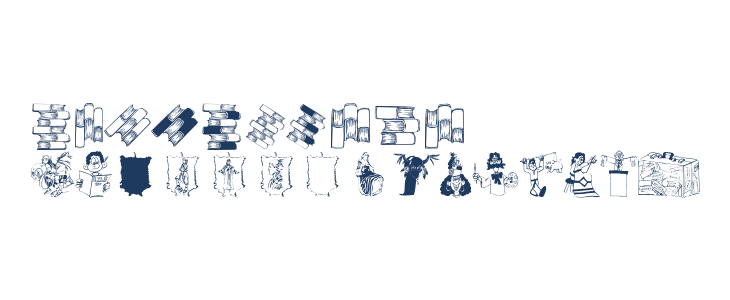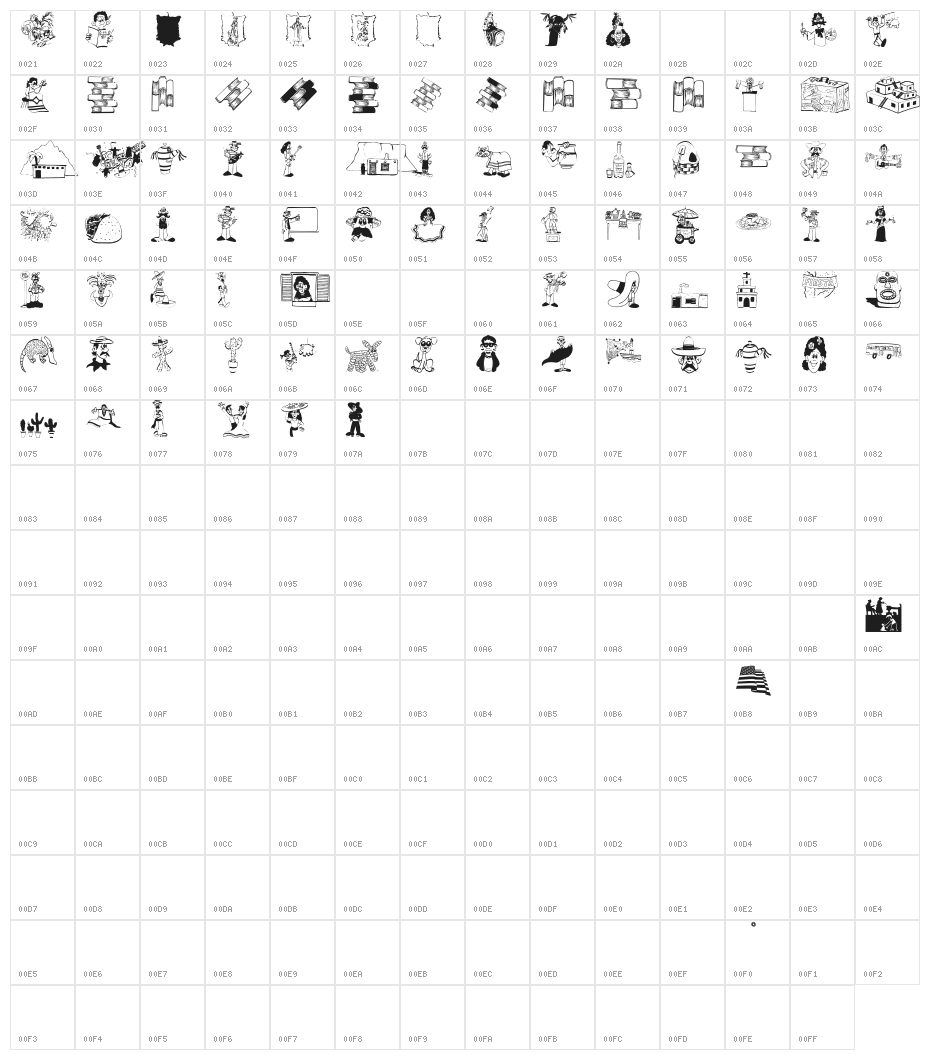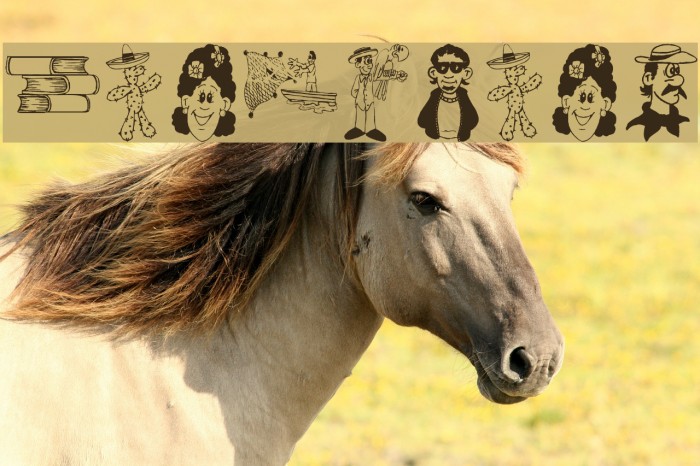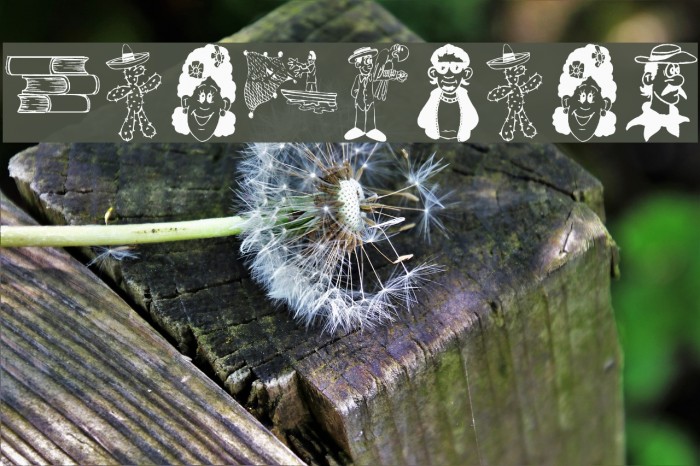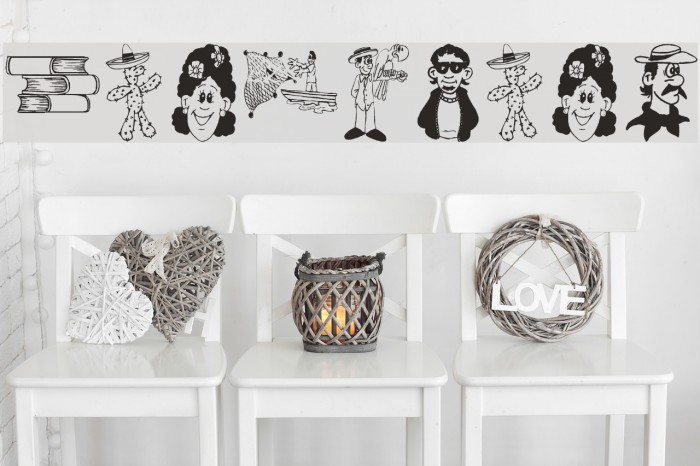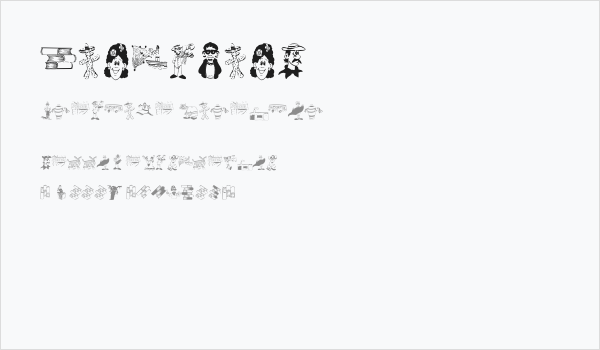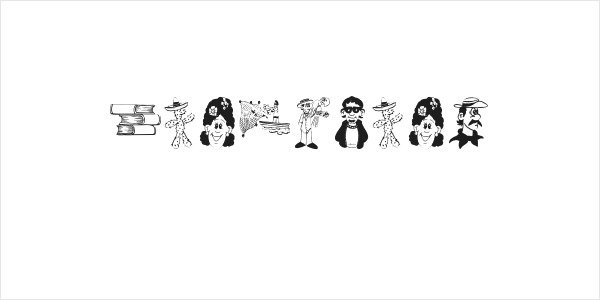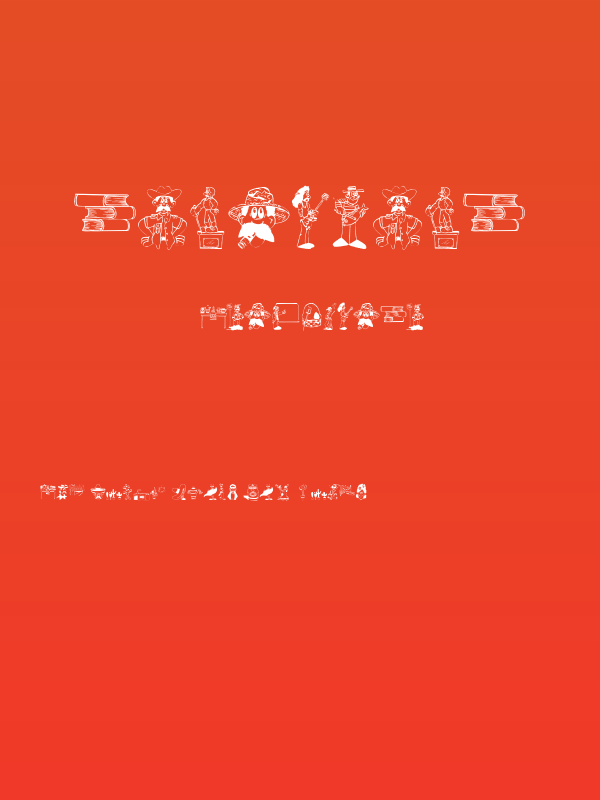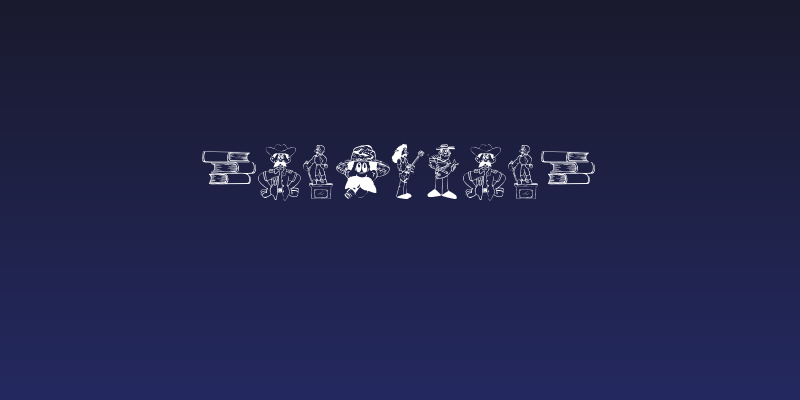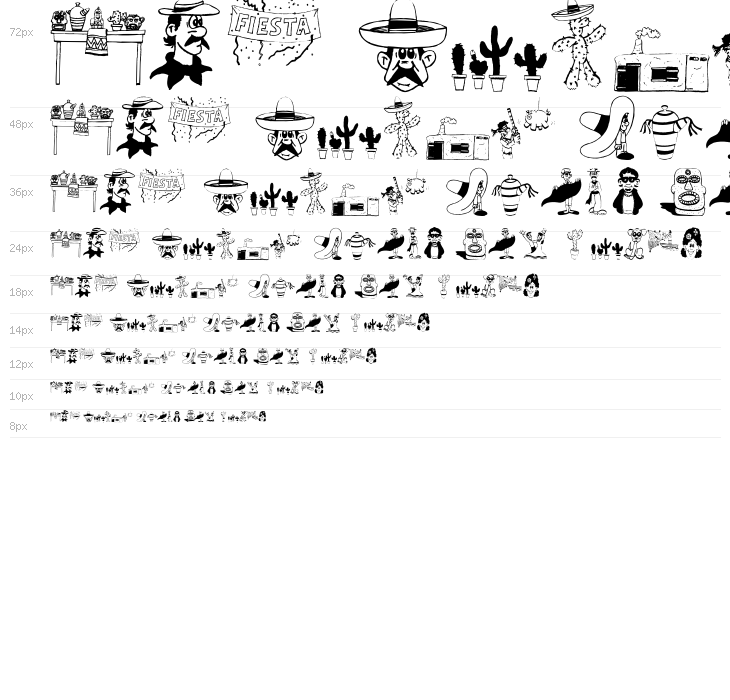
Hispanish Font
Hispanish Description
A highly decorative and playful font composed entirely of detailed cartoon illustrations representing Hispanic and Spanish cultural themes, with each character depicted as a unique scene or figure. The glyphs are complex, whimsical, and visually dense, making each letter or symbol a miniature artwork.
Cartoonish, illustrative font themed around Hispanic and Spanish culture from Uncategorized fonts.
- Proposed Projects: Children’s books, cultural event posters, themed party invitations, educational materials, festival branding.
- Overall Style: Decorative, Playful, Thematic
- Use Case: Logos, Headlines, Posters, Themed Graphics